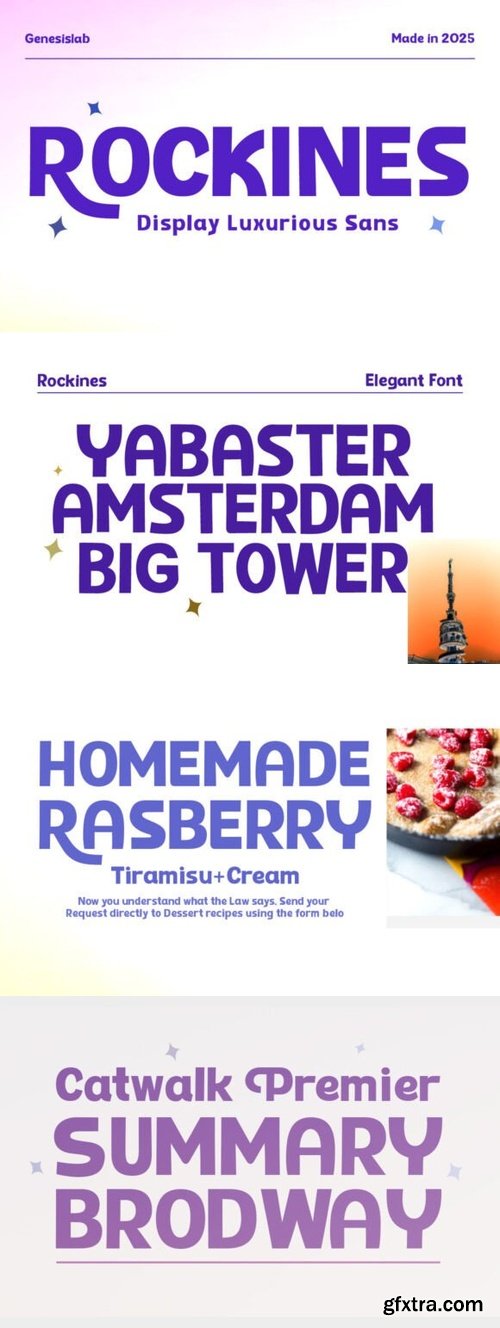
- Rockines overall look and elegance. One of my latest first releases, hand drawn with great accuracy. Rockines has the perfect simplicity and refinement for your next project. This font perfectly represents the retro and vintage aesthetic. I recommend this font for your next logo, invitation, and home decor project that needs a touch of concise alternative combination!